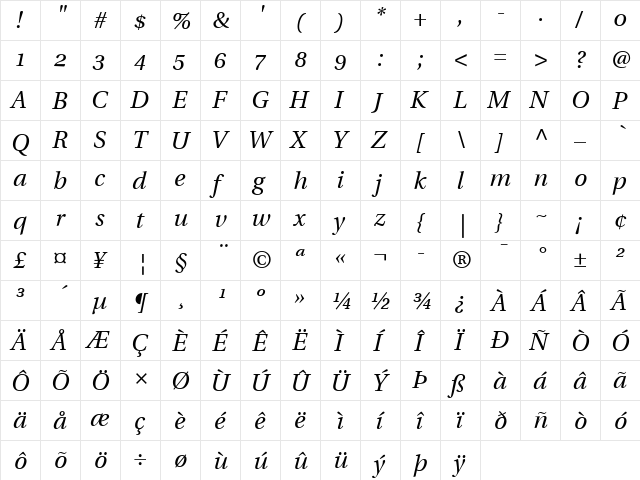
Utopia SC Italic
Design Context for Utopia SC Typeface
Utopia SC is a composed and adaptable typeface that performs quietly and consistently across a wide range of design contexts. The dynamic lean of this cut emphasises speed and emphasis in any layout.
Pro Tip: Try Utopia SC for annotation and caption copy alongside an upright companion — the contrast in angle creates a dynamic but ordered typographic system.